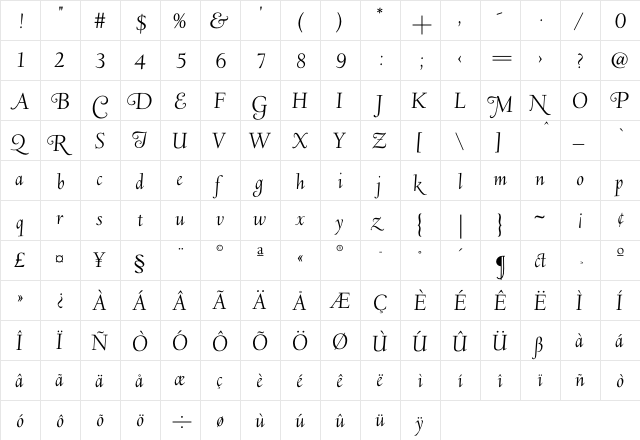
Deepdene LWAlt-Italic Font Preview
Deepdene LWAlt-Italic
Design Context for Deepdene Typeface
Deepdene is a composed and adaptable typeface that performs quietly and consistently across a wide range of design contexts. The dynamic lean of this cut emphasises speed and emphasis in any layout.